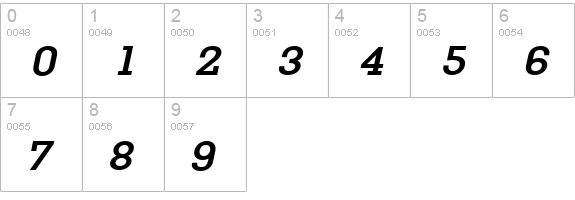
Geo Wide Bold Italic is a strong, high-contrast, extended-width, italic variant in the Geo typeface family \xE2\x80\x94 well suited to headlines, attention-grabbing titles, and strong calls-to-action.
Introducing Geo Wide Bold Italic font - a modern and eye-catching typeface designed to make a bold statement in your design projects. The unique combination of wide letterforms and italic styling gives this font a dynamic and contemporary look that is perfect for headlines, titles, and branding materials. What's even better is that this striking font is available for free download at FontsMarket.com! Whether you're working on a website, poster, or logo design, Geo Wide Bold Italic font will add a touch of sophistication and style to your work. Don't miss out on this opportunity to elevate your designs with this versatile and impactful typeface. Download it now and take your projects to the next level!